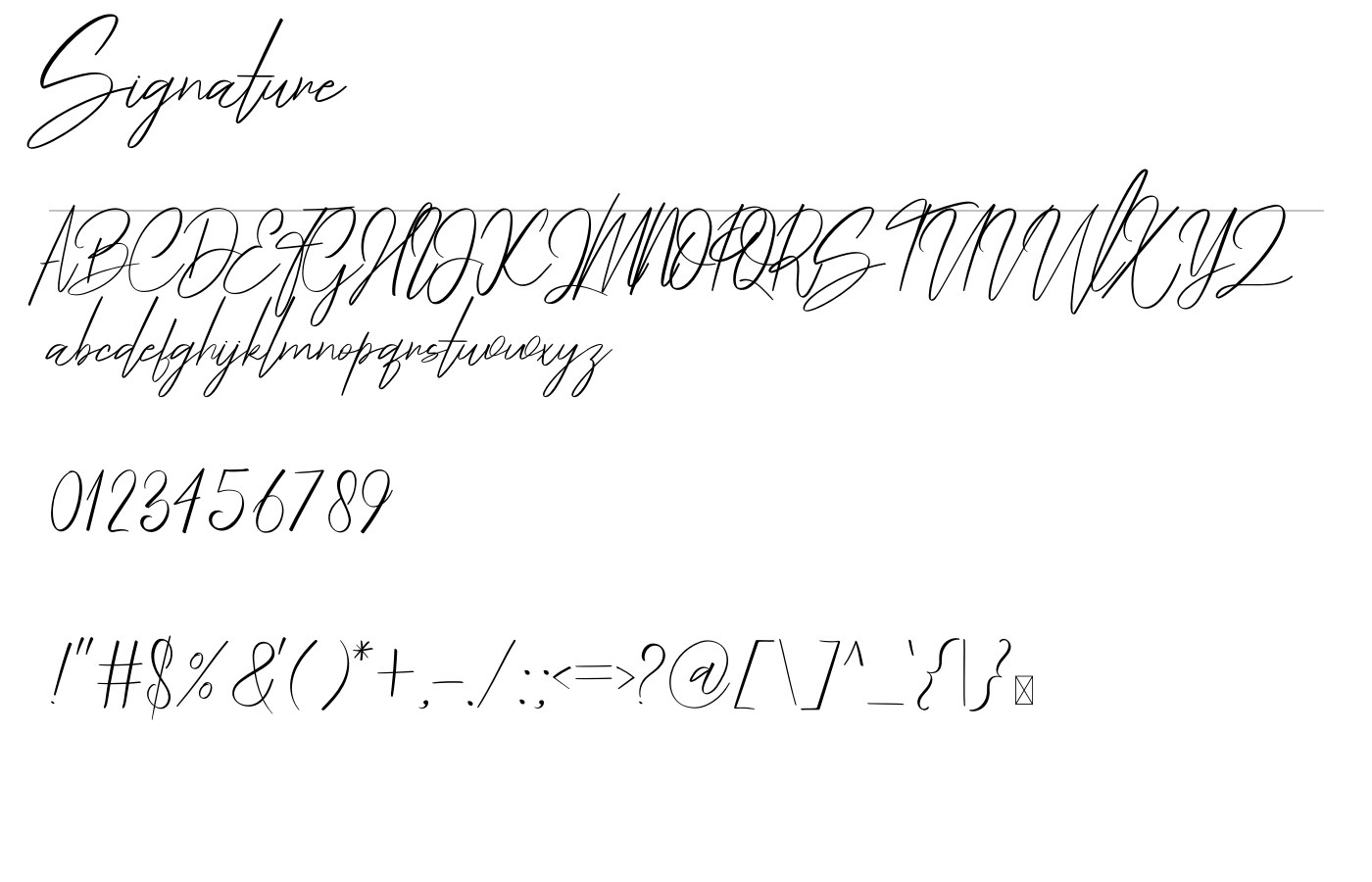
Signature Font is an elegant, delicate script typeface that mimics natural handwriting with its thin, flowing strokes and high, narrow letterforms. This font evokes a sense of personal touch and sophistication, making it perfect for branding, invitations, and any design that seeks a refined yet approachable style. Its light weight and graceful curves work beautifully in logos and editorial projects where elegance and clarity are essential.
Signature Font
About Signature Font